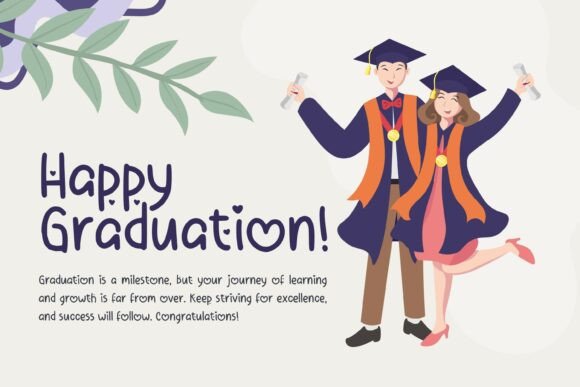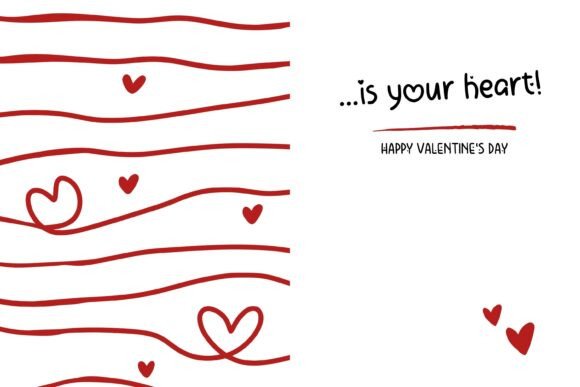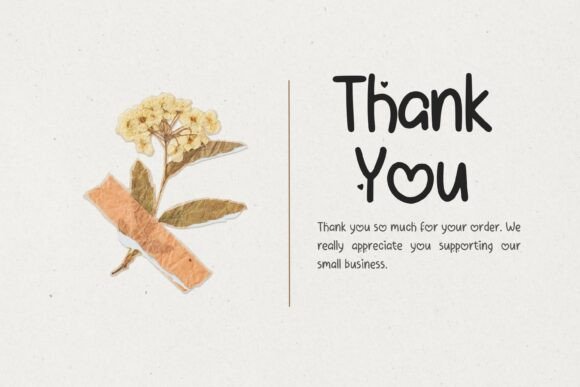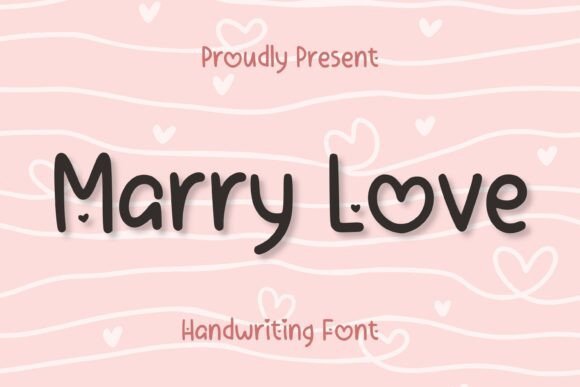
Introduction to Marry Love Font
Marry Love is an irresistibly adorable font characterized by delightful heart shapes.
Touched by romance and elegance, Marry Love sets a charming scene, making it perfect for wedding invitations or creativity-inspired projects Get ready to captivate and enchant with this uniquely beautiful typeface.